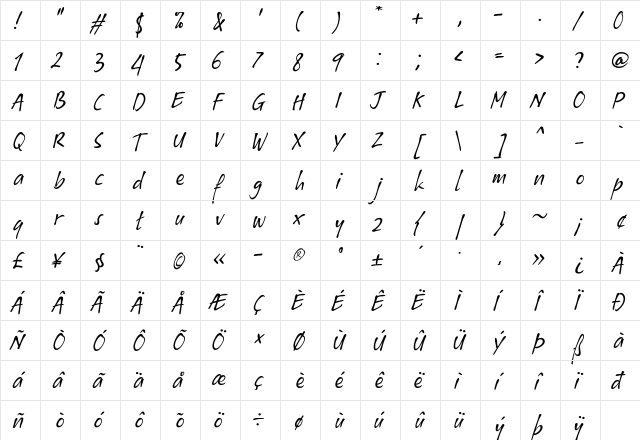
Xyling Regular
| Foundry | 7NTypes |
| Designer | Situjuh Nazara |
Design Context for Xyling Typeface
Xyling is a composed and adaptable typeface that performs quietly and consistently across a wide range of design contexts.